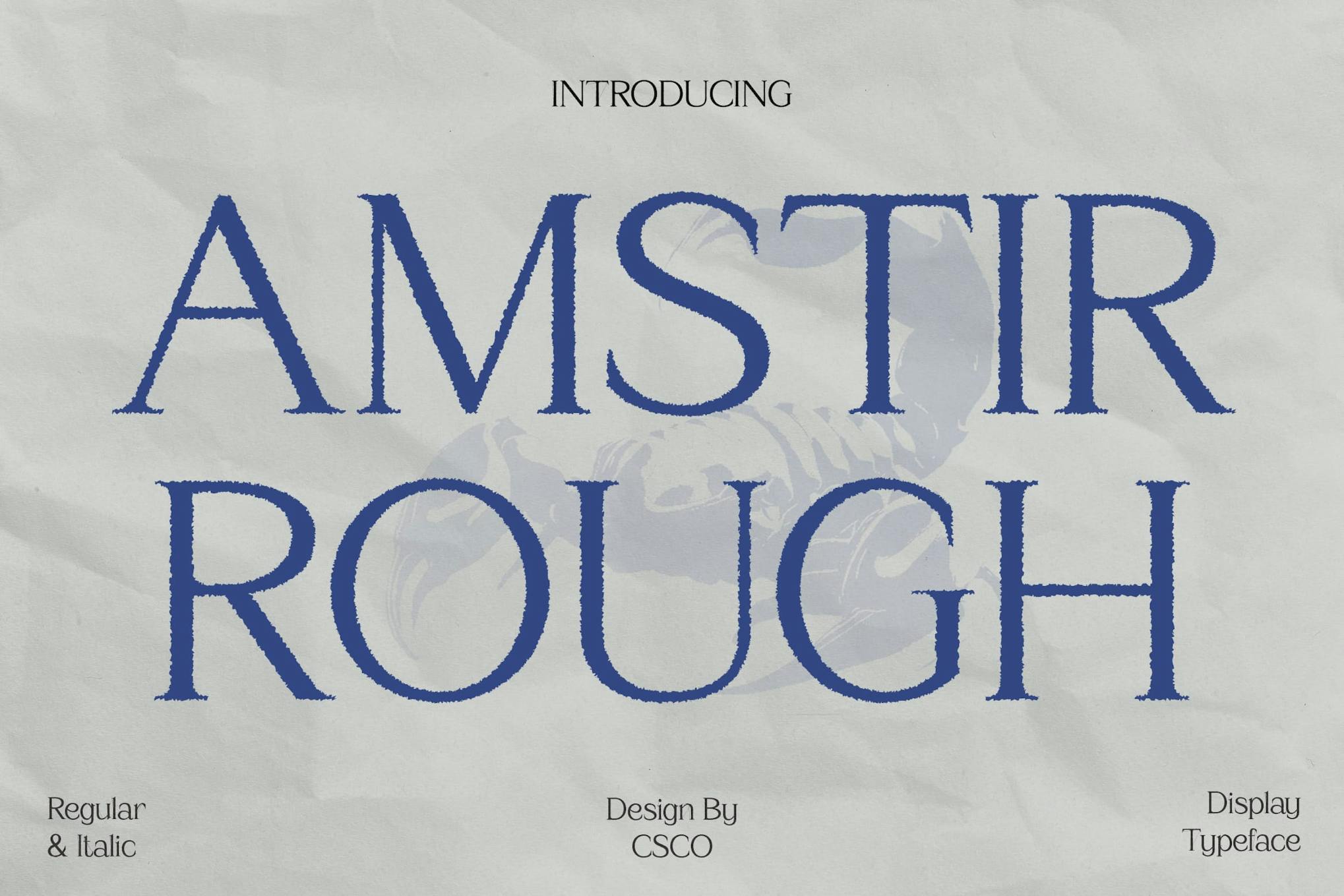
Amstir Rough Font
Perfect for vintage branding, retro posters, rustic packaging, café menus, apparel design, signage, and social media creatives.
The Amstir Rough Font excites designers with its distressed letterforms, handcrafted feel, and timeless retro-inspired aesthetic.
The Amstir Rough Font Free Download is a versatile typeface created for projects that demand an authentic, weathered style. Its rough edges and textured finish give it a hand-crafted quality that instantly adds personality and warmth to any design. Inspired by traditional printing techniques and vintage signage, Amstir Rough is perfect for projects where you want to combine a nostalgic feel with modern design sensibilities.
One of the standout features of Amstir Rough Font is its ability to maintain clarity while showcasing rugged texture. This makes it ideal for headlines, branding, and packaging that need to stand out without sacrificing readability. Whether you’re working on a brewery label, artisanal coffee packaging, or an outdoor adventure brand, this font delivers the right mix of boldness and charm.
In branding, Amstir Rough creates a strong sense of heritage and trust. Its classic yet imperfect strokes convey authenticity, making it a great fit for brands that value craftsmanship and tradition. For digital projects, its textured look can bring depth and uniqueness to social media posts, website banners, and digital ads, ensuring your content catches the viewer’s attention.
This font also shines in editorial and print work. Imagine it on the cover of a retro magazine, as a bold chapter heading, or on a rustic wedding invitation — its versatility is unmatched. Pairing it with clean sans serif typefaces can create a beautiful contrast that enhances your overall design.